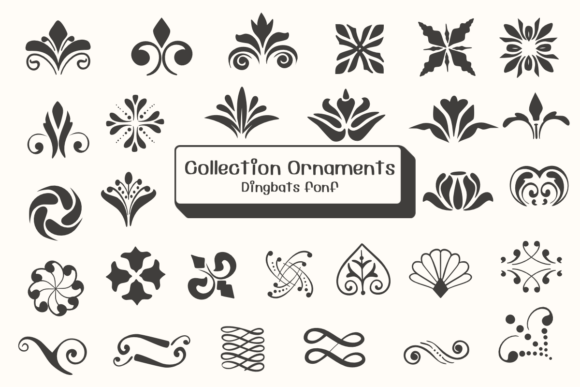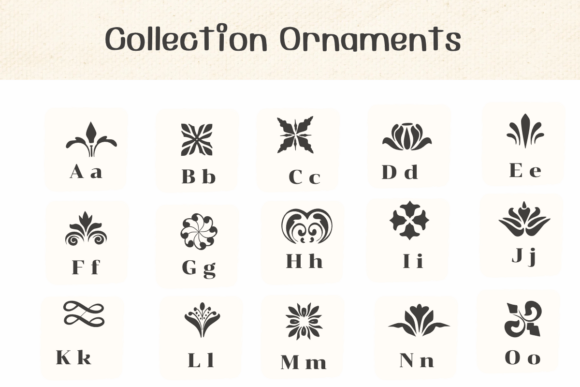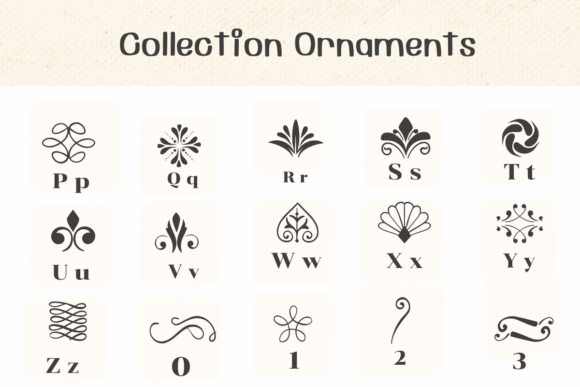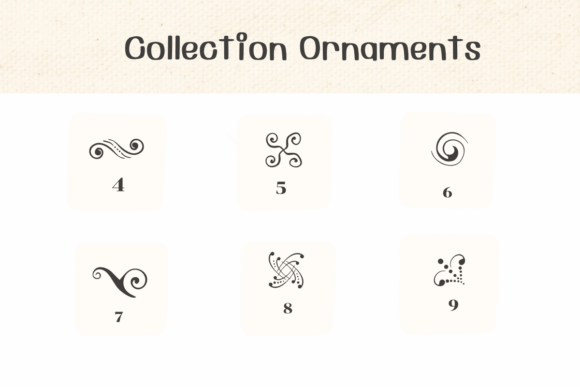
Collection Ornaments Font
About the Collection Ornaments Font
The Collection Ornaments Font is here to transform your projects with its distinctive character and style. Collection Ornaments Dingbats Font is an elegant and versatile set of ornamental glyphs, perfect for adding decorative flourishes to invitations, branding, packaging, logos, and more. Featuring a variety of swirls, flourishes, floral motifs, and classical accents, this dingbat font brings a touch of vintage sophistication to any project.
Its elegant, vintage-inspired style makes it ideal for projects requiring a touch of refined ornamentation. Use it sparingly in logos, wedding invitations, or product packaging to add subtle detail and visual interest. Avoid using it for large blocks of text or body copy; its decorative nature is best suited for accents and embellishments.
Collection Ornaments pairs well with classic serif fonts like Garamond or Didot for a cohesive, traditional feel, or with a clean sans-serif like Helvetica Neue for a more modern contrast. For a softer look, consider pairing it with a script font like Playfair Display. The font’s core personality is sophisticated and refined, lending itself to brands and projects conveying luxury or heritage.
Collection Ornaments Font Usage Examples
Collection Ornaments Font Example